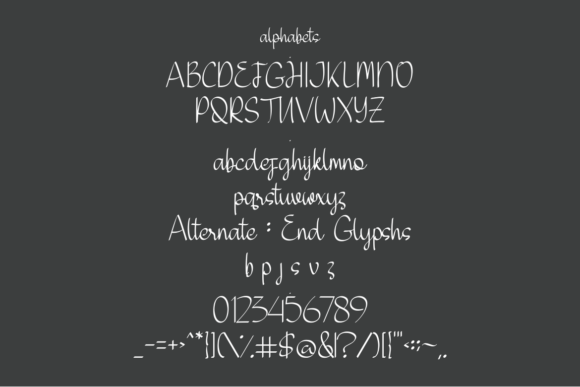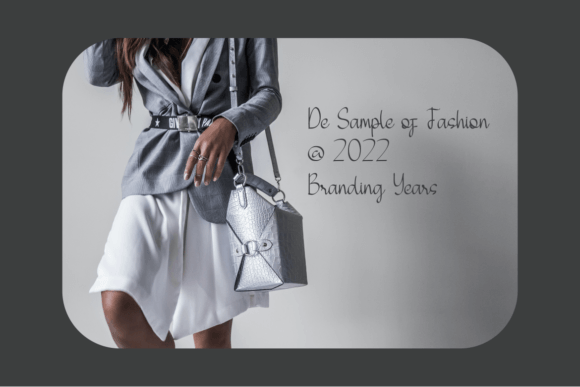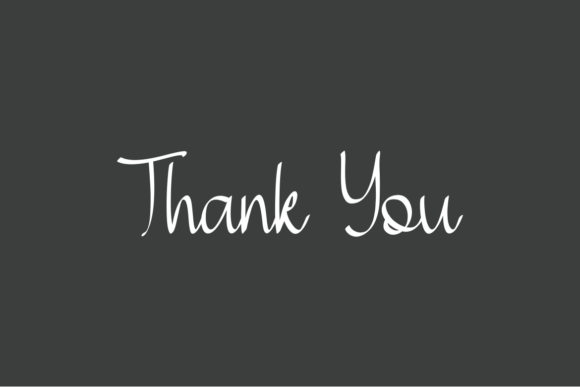
Introducing Ghostarica Font: Elevate Your Designs with Elegance and Sophistication
In the world of typography, fonts play a crucial role in conveying the tone and aesthetic of a design. For designers and crafters looking to add a touch of elegance and sophistication to their projects, Ghostarica Font is an excellent choice. This modern handwritten font is perfect for a wide range of applications, from fashion and apparel to branding, advertising, and more.
What is Ghostarica Font?
Ghostarica is an elegant, classy, and modern handwritten font that exudes refinement and poise. Its smooth, flowing lines and carefully crafted letterforms make it an ideal choice for designers seeking to create visually stunning and cohesive designs. Whether you’re working on a fashion brand, a personal signature, or an album cover, Ghostarica Font is sure to impress.
Key Features of Ghostarica Font
- Elegant and Classy: Ghostarica Font boasts a sophisticated and refined aesthetic, perfect for high-end designs and luxury brands.
- Modern and Fresh: Despite its classic feel, Ghostarica Font has a distinctly modern edge, making it suitable for contemporary designs and trends.
- Handwritten Charm: The font’s handwritten nature adds a touch of personality and warmth to any design, setting it apart from more traditional typography.
- Versatile: Ghostarica Font can be used across a wide range of projects, from fashion and apparel to branding, advertising, and more.
Use Cases for Ghostarica Font
Ghostarica Font is an incredibly versatile typeface, suitable for a variety of design applications. Here are some of the most popular use cases:
- Fashion and Apparel: Use Ghostarica Font to create stunning fashion branding, including logos, labels, and packaging.
- Signatures and Logos: Add a touch of elegance to your signature or logo with Ghostarica Font, perfect for professionals and businesses.
- Album Covers and Music Branding: Create eye-catching album covers and music branding with Ghostarica Font’s unique and captivating style.
- Magazines and Social Media: Use Ghostarica Font to add a touch of sophistication to your magazine layouts, social media graphics, and online content.
- Advertisements and Marketing Materials: Elevate your advertising and marketing materials with Ghostarica Font’s refined and modern aesthetic.
Why Choose Ghostarica Font?
With so many fonts available, why choose Ghostarica Font for your next design project? Here are just a few reasons:
- Unique and Memorable: Ghostarica Font’s distinctive style ensures your designs will stand out and be remembered.
- High-Quality and Professional: This font is crafted with precision and attention to detail, ensuring a professional finish for your designs.
- Easy to Read and Versatile: Ghostarica Font is optimized for readability and can be used across a range of design applications.
Ghostarica Font is an exceptional choice for designers and crafters seeking to add a touch of elegance and sophistication to their projects. With its modern, handwritten style and versatile nature, this font is perfect for a wide range of design applications. Whether you’re working on a fashion brand, album cover, or advertising campaign, Ghostarica Font is sure to elevate your designs and leave a lasting impression.